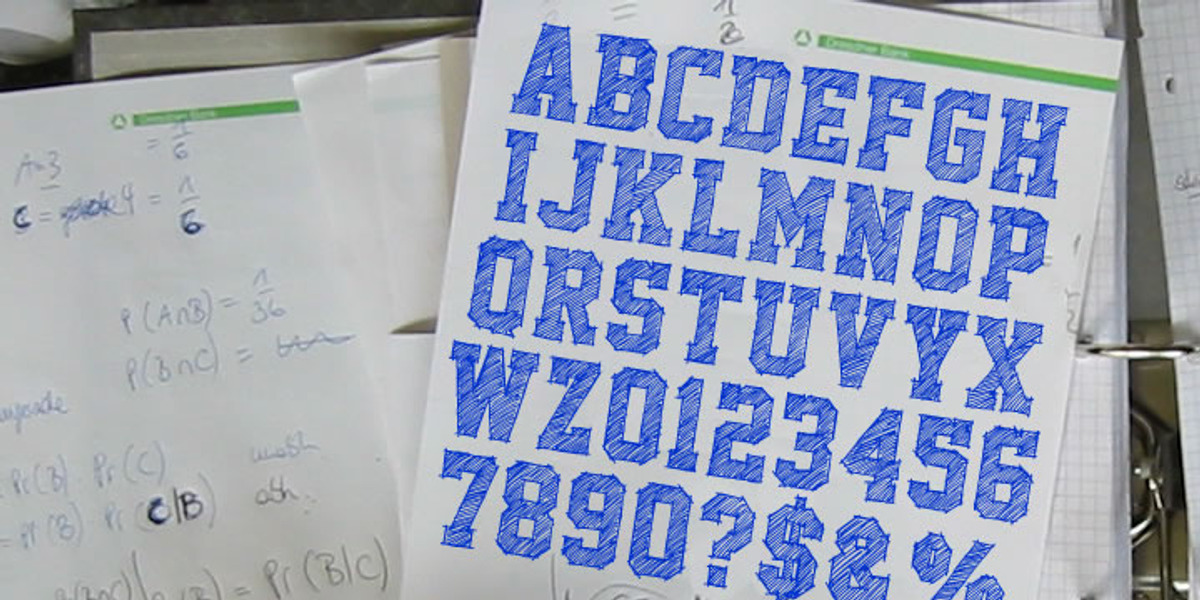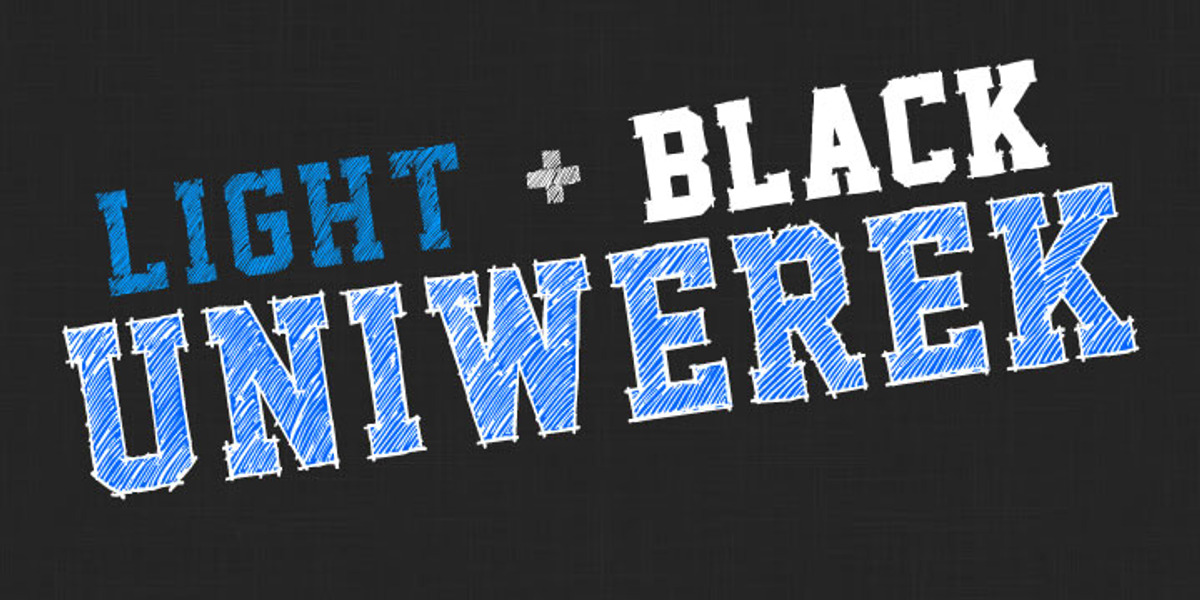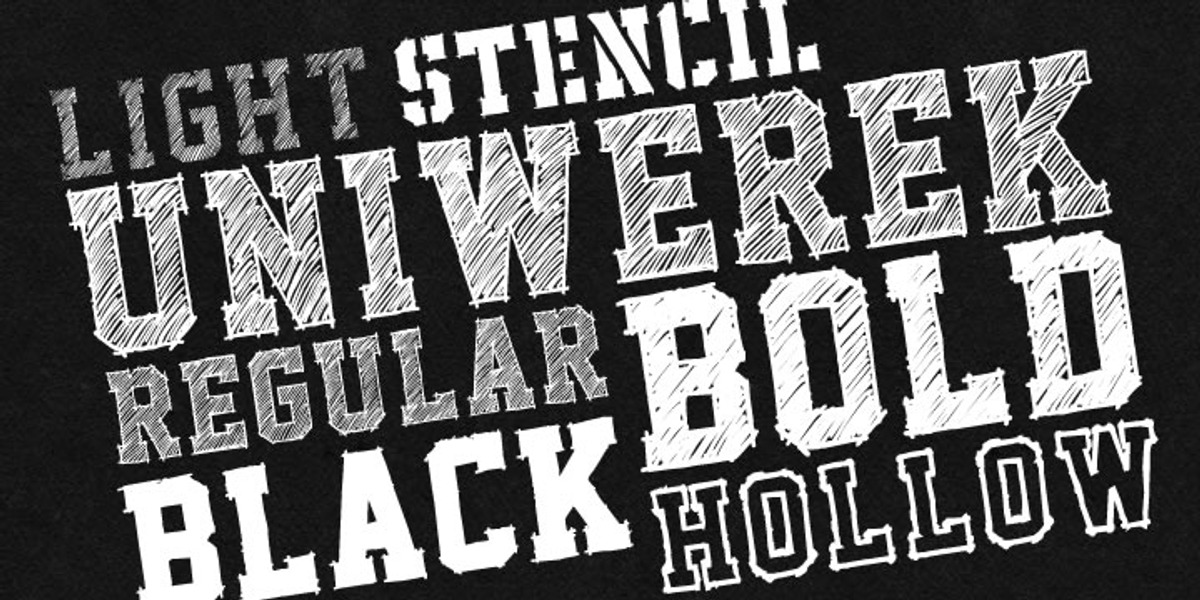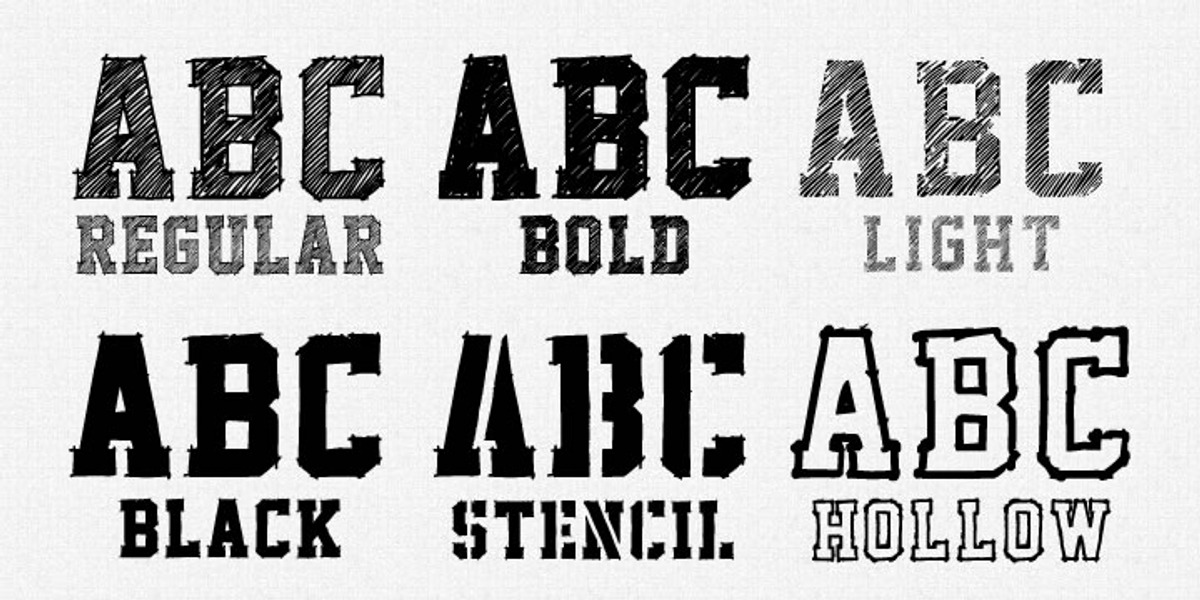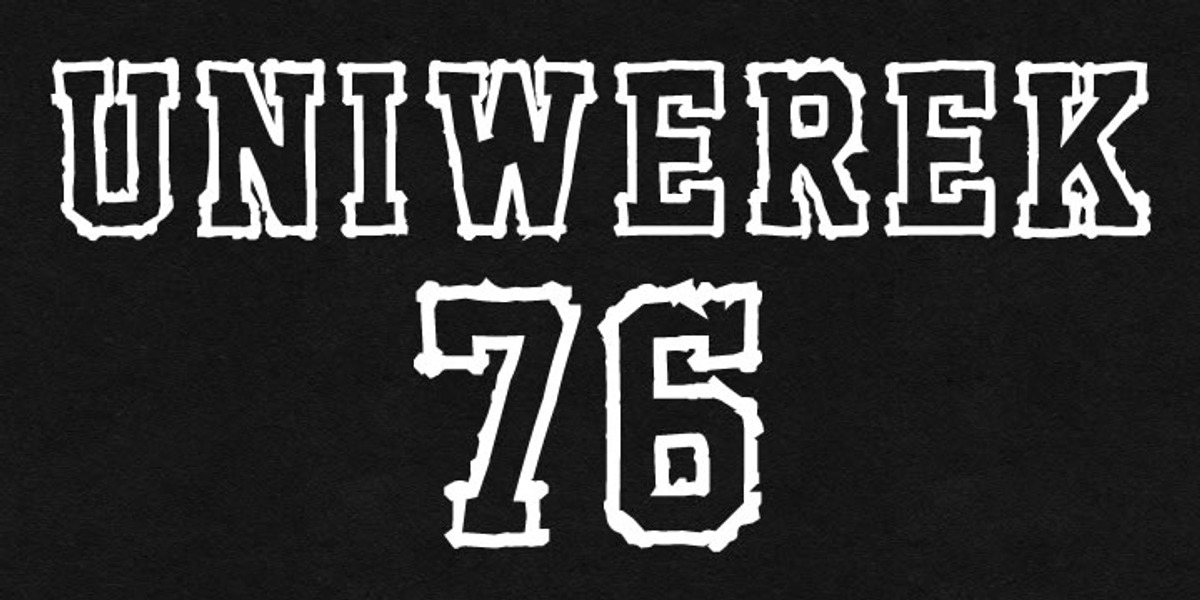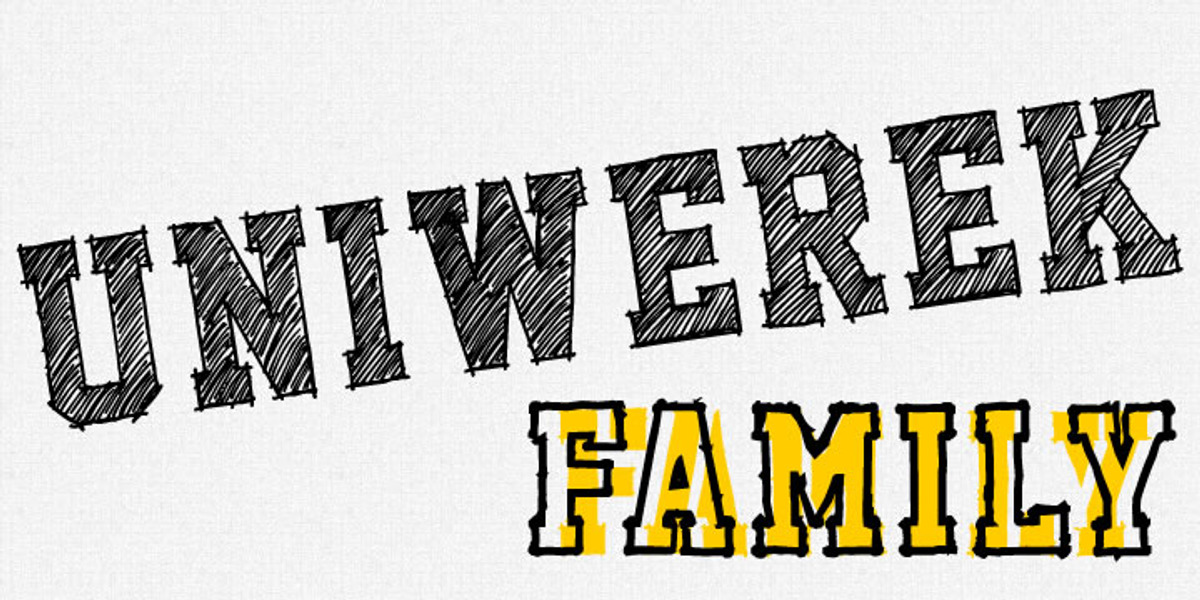
Uniwerek
Uniwerek is a hand-drawn display font inspired by college and university sportswear. It features a distinct stencil style with bold serif slab characters. The font comes in six weights, including light, regular, and black, allowing for layering effects. Its collegiate aesthetic makes it suitable for branding, posters, and sportswear design.